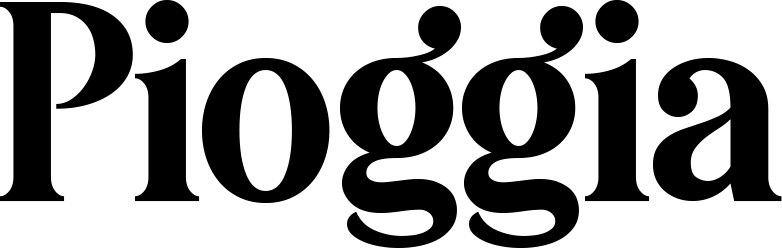
Pioggia Font
Pioggia is an elegant member of the luxury serif font family that comes with bold, formal, classic, and stylish characters. If you want your brand to look elegant yet formal Pioggia would fit the bill! Not only for branding matters, but this fashion magazine font makes a perfect choice for invitations, greeting card design, posters, and product packaging too!